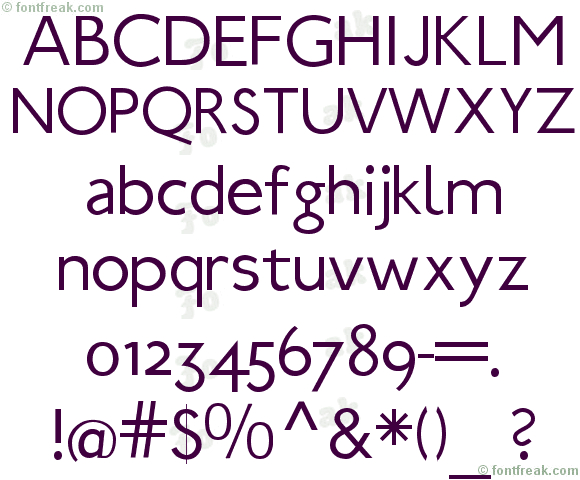
Ubahn
Ubahn-Light
The Ubahn font by Manfred Klein is a striking sans-serif typeface that combines modern aesthetics with functional clarity. Characterized by its clean lines and geometric forms, Ubahn stands out with a balanced stroke weight that ensures readability while maintaining a contemporary look. The font exhibits a low contrast in its letterforms, making it versatile for various applications. The spacing is well-considered, allowing for seamless integration into both digital and print media.
Ubahn is particularly well-suited for a range of creative projects. Its modern aesthetic makes it an excellent choice for branding materials, such as logos and business cards, where a professional yet approachable appearance is desired. Additionally, the font shines in the realm of editorial design, making it a great fit for magazine headlines and articles. Event promotions, such as concert posters or art exhibition flyers, can also benefit from Ubahn’s bold presence, drawing attention while maintaining an air of sophistication. Furthermore, small business owners looking to create inviting restaurant menus or café signage will find Ubahn to be an appealing option that enhances their brand identity.
What sets Ubahn apart is its ability to convey modernity and professionalism without sacrificing warmth and approachability. Its geometric shapes and clean lines create a harmonious visual experience, making it a standout choice in the world of typography. For those seeking to enhance their design toolkit, Ubahn font free download opens up new creative possibilities.